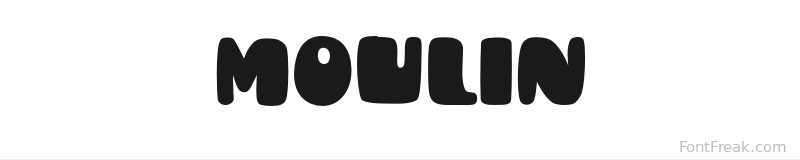
Moulin
Moulin by Kong Font is a captivating display typeface that exudes a modern yet playful charm. Released in 2021, this font features a unique blend of rounded and geometric forms, making it an excellent choice for a variety of creative projects. The stroke weight is consistent, offering a delightful visual balance, while the ample spacing between characters enhances readability, ensuring that your message stands out. The font's design includes subtle decorative elements that add character without overwhelming the overall aesthetic, making it versatile for numerous applications.
Ideal for wedding invitations, Moulin brings a touch of elegance to any romantic announcement. Its whimsical style is also perfect for movie posters, where it can effectively capture attention and convey the mood of the film. Additionally, restaurant menus benefit from Moulin's inviting appearance, enticing customers with its friendly design. Small business owners and graphic designers will find Moulin invaluable for branding materials, such as logos and promotional flyers, as it effortlessly communicates a sense of creativity and approachability.
The target audience for this font includes graphic designers, small business owners, and content creators who seek to enhance their projects with a distinctive typeface. Whether you are designing a website, crafting social media graphics, or creating printed materials, Moulin offers the flexibility and uniqueness you need.
In conclusion, Moulin stands out in the realm of typefaces due to its modern design, playful character, and versatility across various applications. Its ability to convey emotion while maintaining clarity makes it a fantastic choice for anyone looking to elevate their visual communication. Don't miss the opportunity to enhance your creative projects with the Moulin font free download, available now for your artistic endeavors.